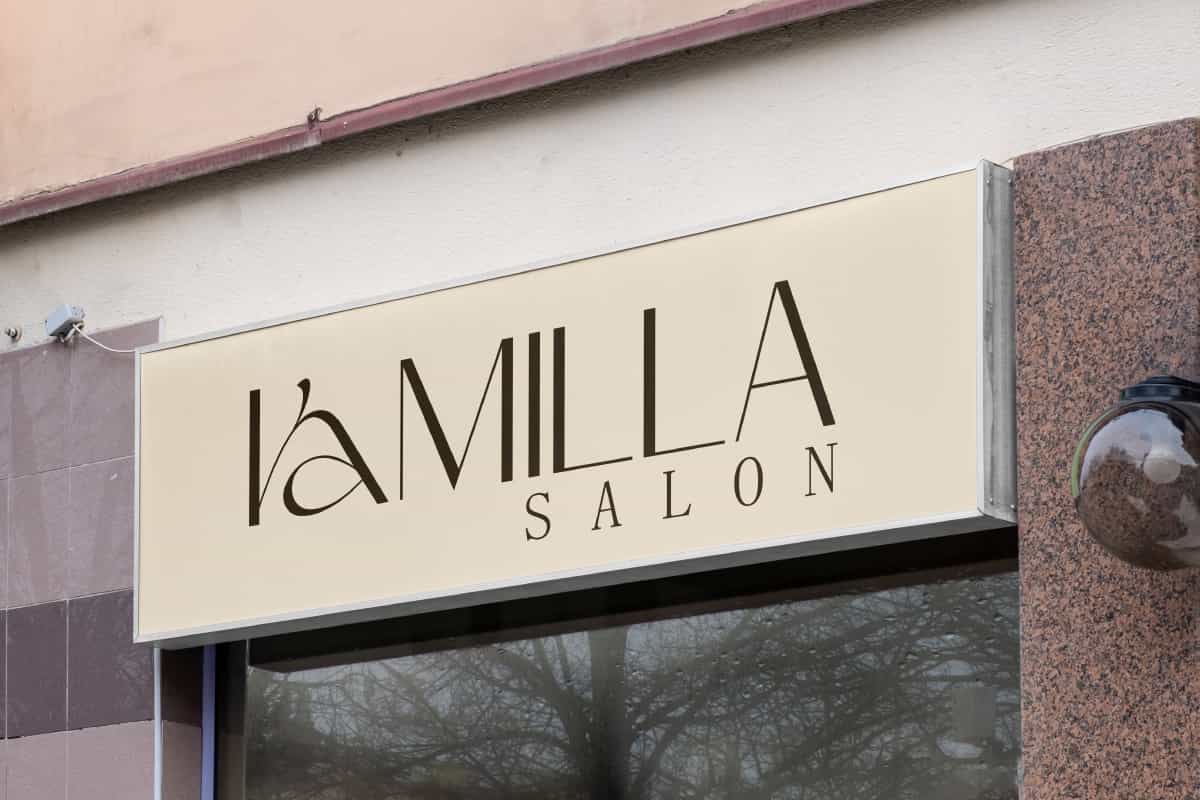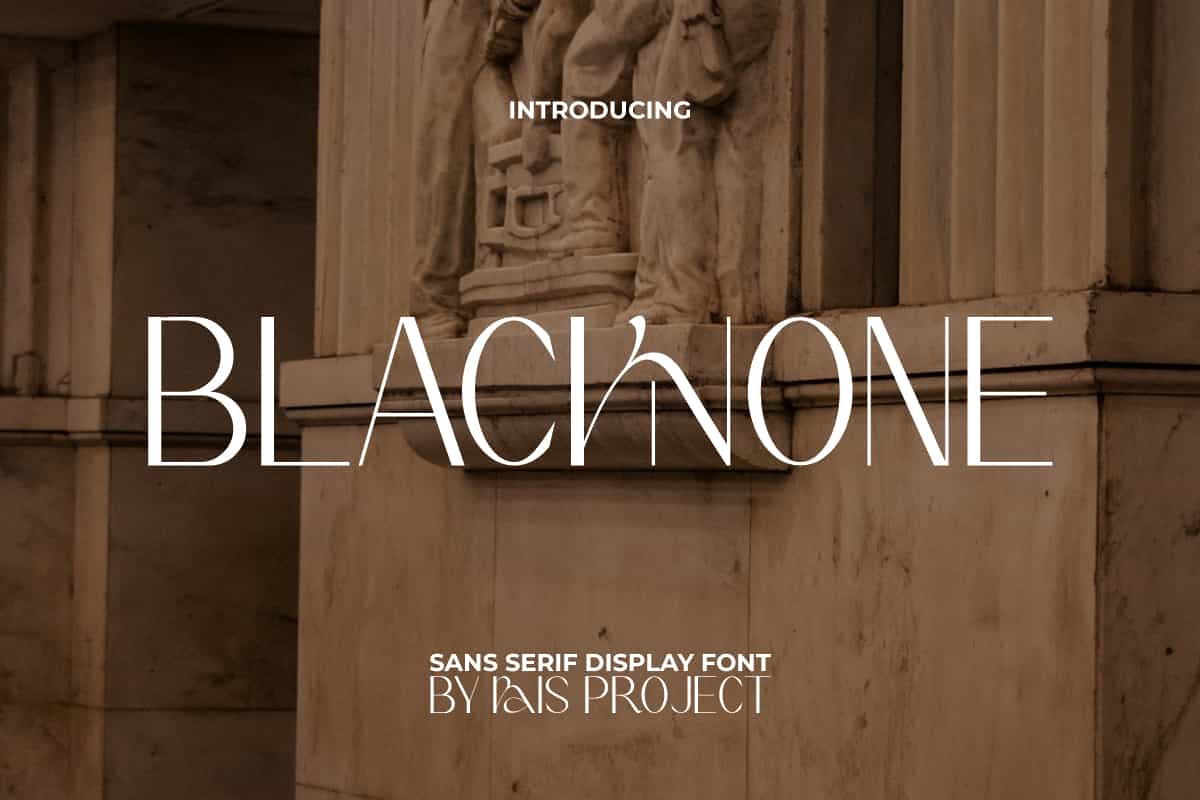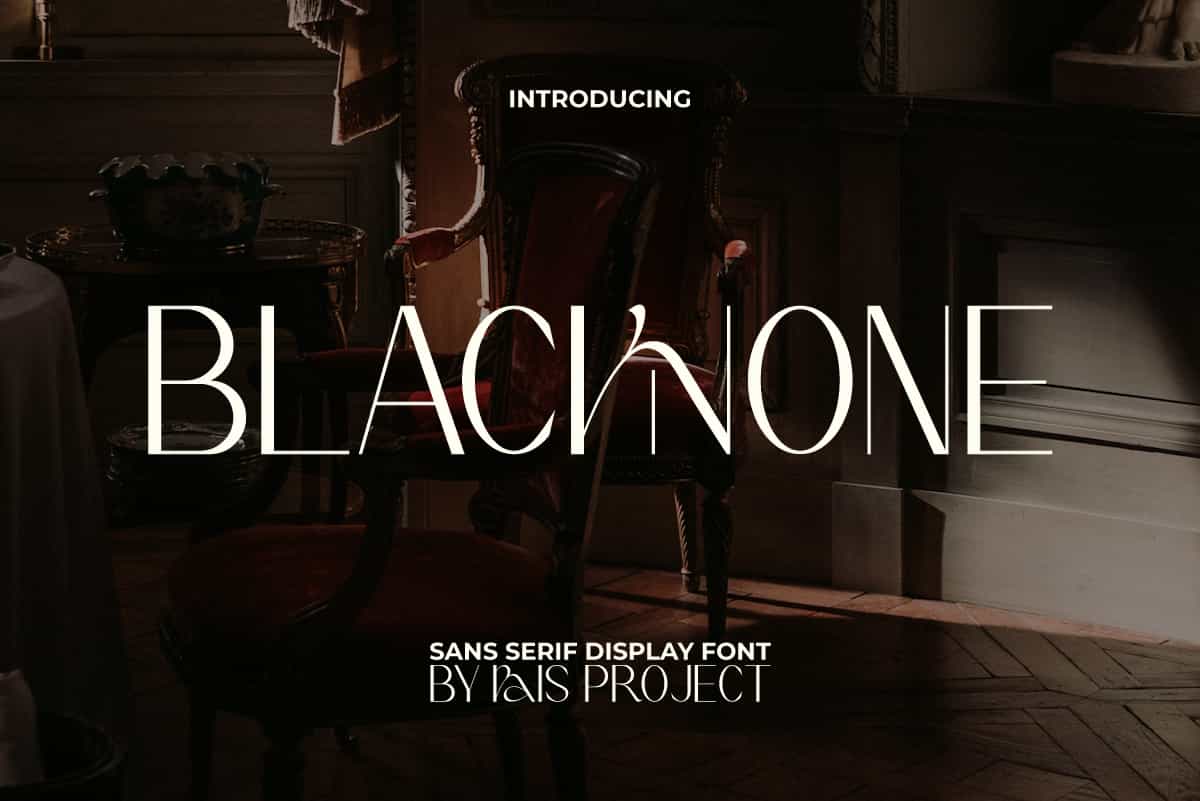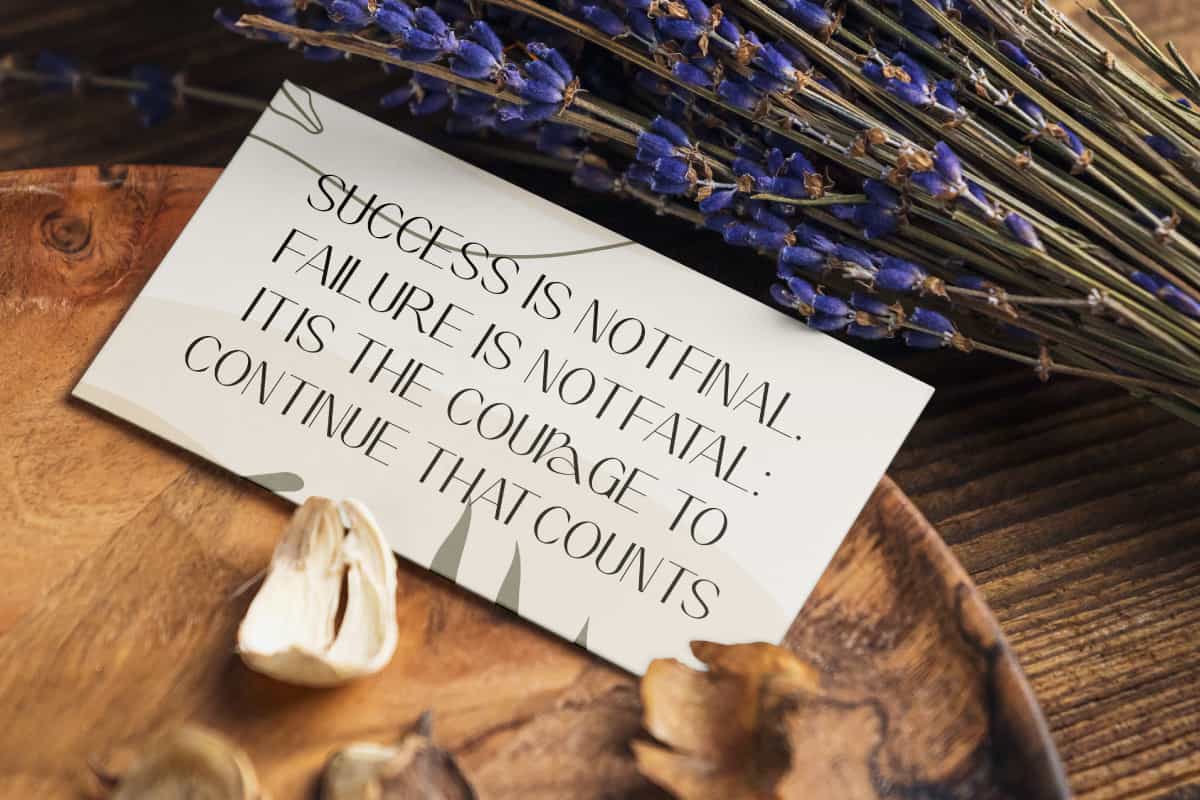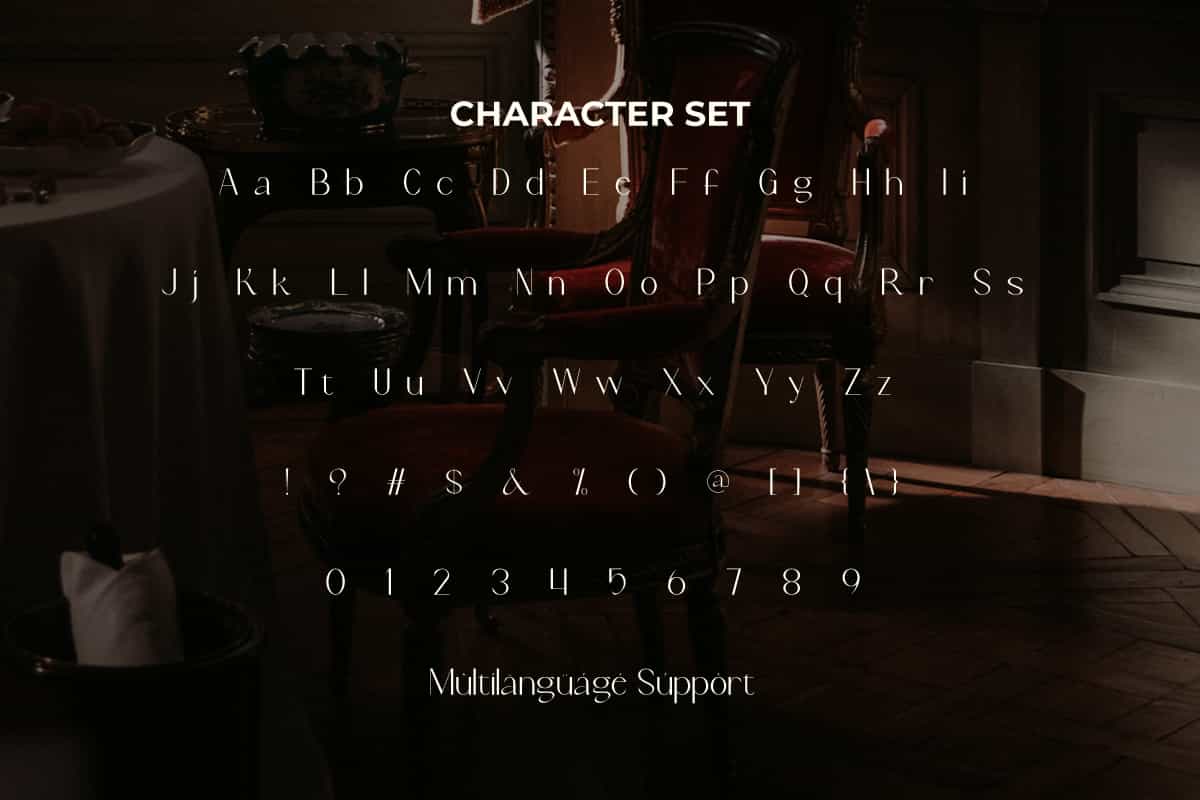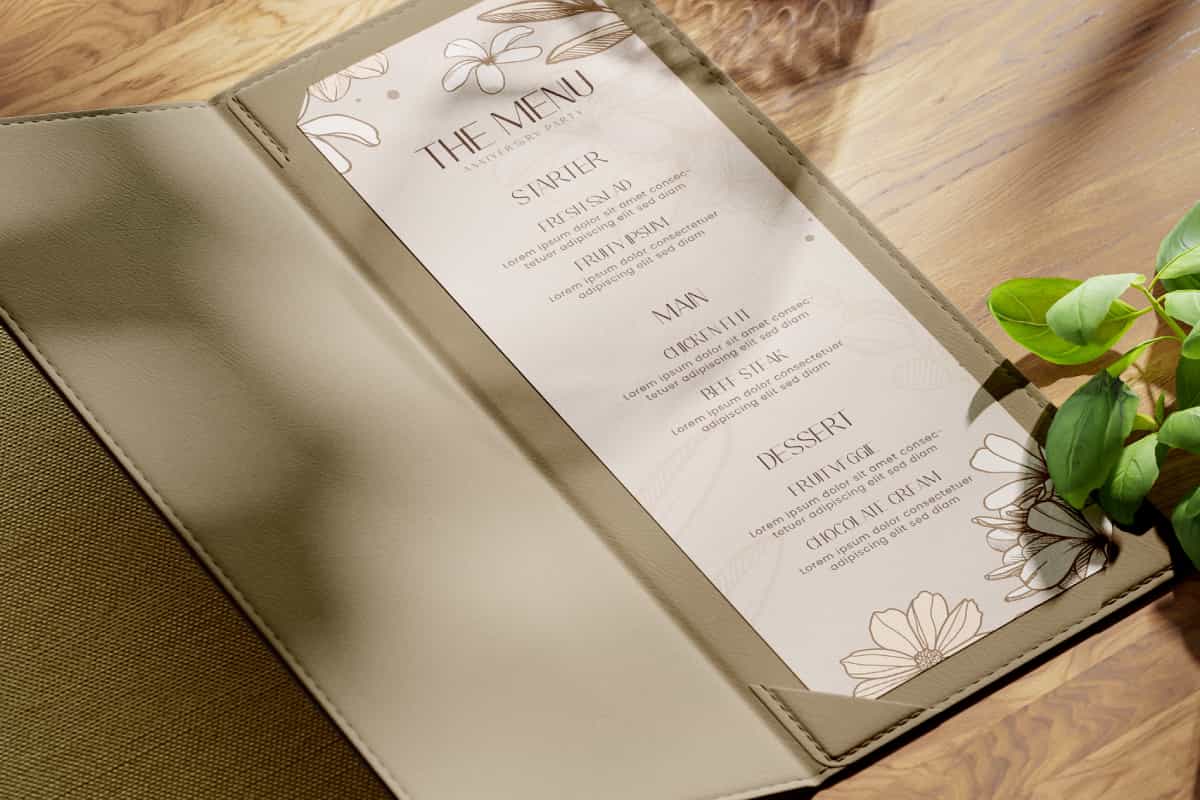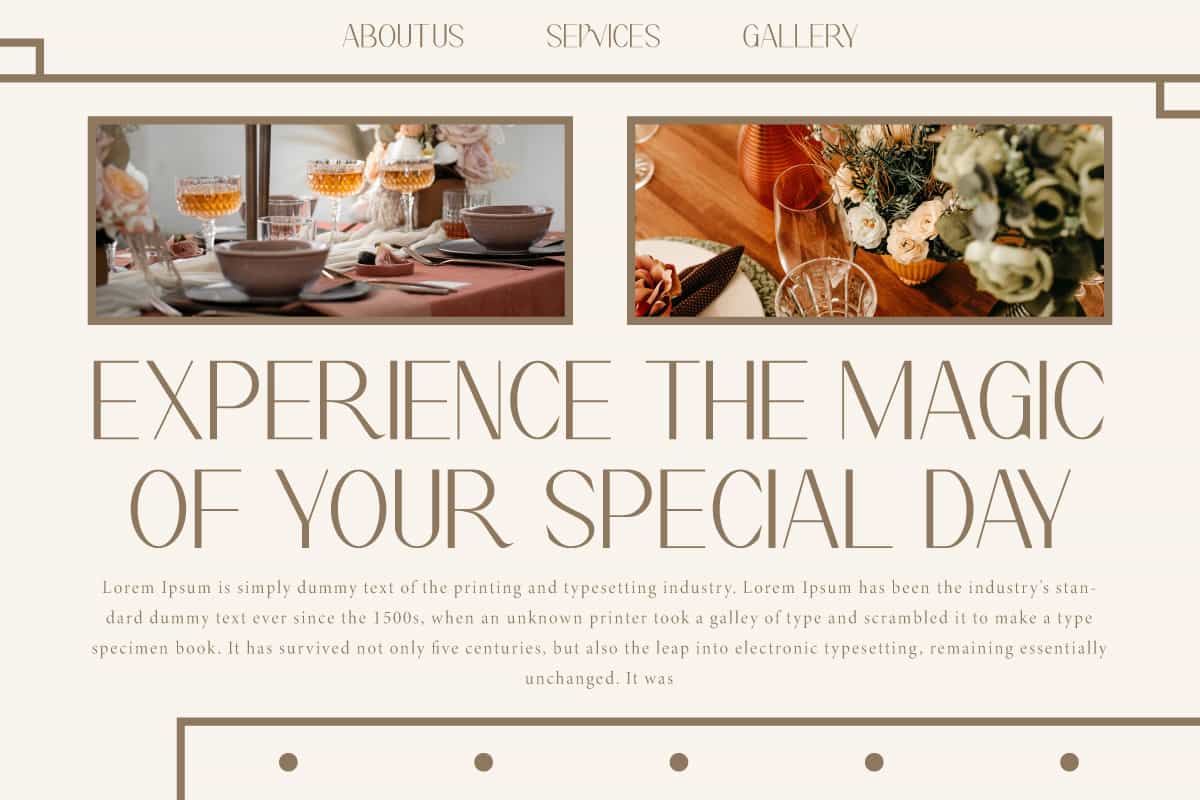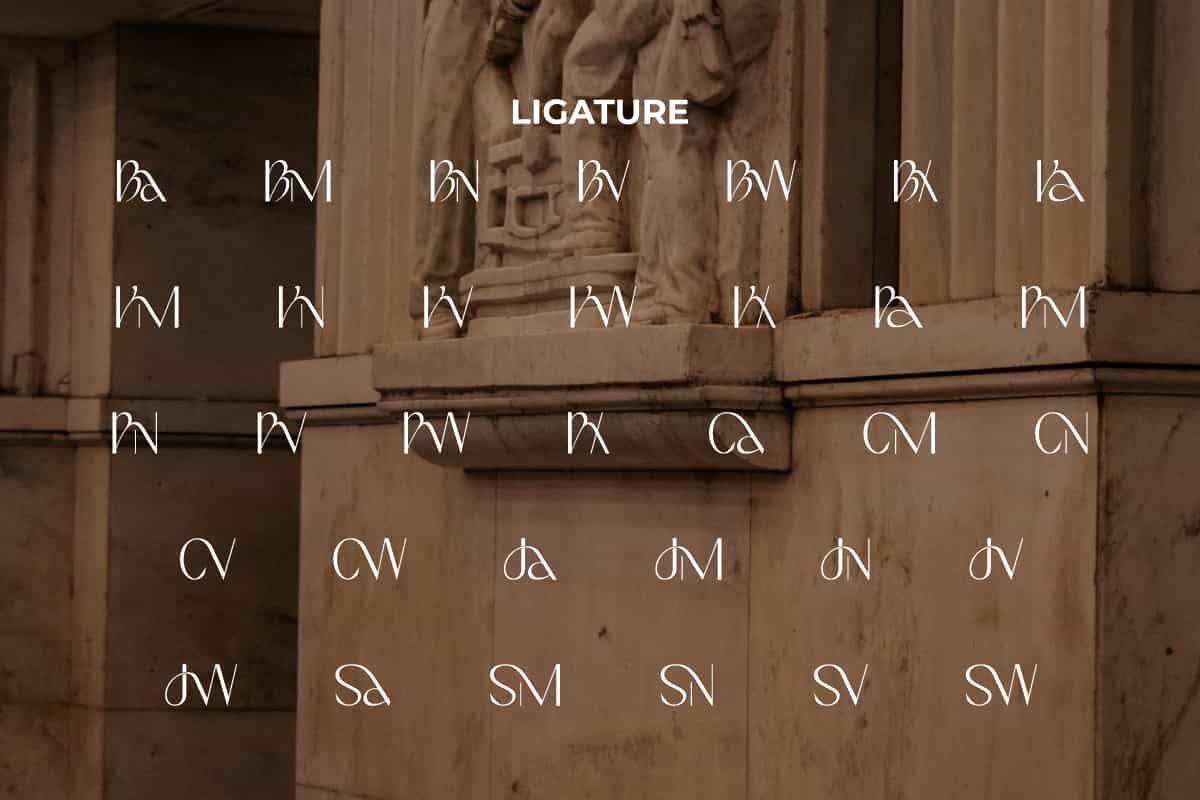
Blacknone Font
Blacknone Font is an aesthetic yet stylish modern sans display font that will make your designs looks fancy!
Blacknone Font is an aesthetic yet stylish modern sans serif display font that can add an expensive impression, created by RaisProject. Its clean style will not make your design boring because there are variations of curved letters. It will be good for any designs, such as signage, label, stationery, invitation, brand image, cover, custom design, poster, product packaging, quotes, web, and more!
Blacknone Font includes a full set of Uppercase and Lowercase Letters, Numerals, Punctuation, Symbol, and Ligature character. This fancy font will be suitable for various industries, such as fashion, accessories and jewelry, advertisement, event or wedding organizer, florist, homeware, perfume, photography, printing, publishing, real estate, etc.